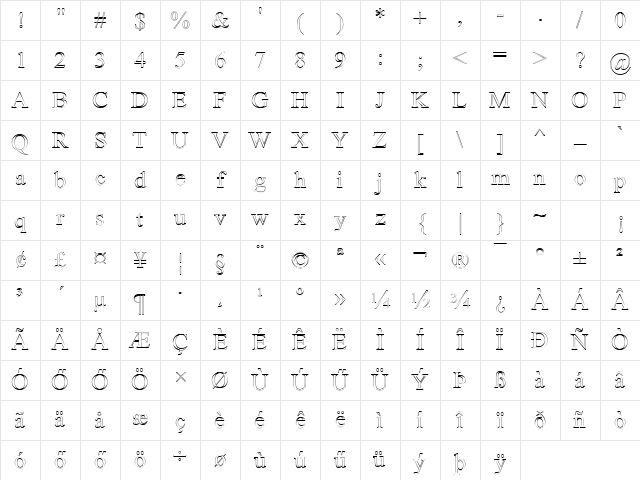
Huni_Amern Regular
Design Context for Huni_Amern
Huni_Amern is a composed and adaptable typeface that performs quietly and consistently across a wide range of design contexts.